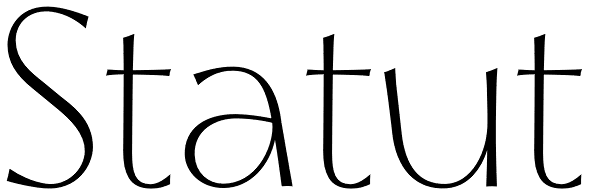
Statut
Statut is a ceremonial, elegant and highly readable display typeface with humanistic proportions based on Renaissance inscriptions. This sophisticated typeface is excellent for a variety of uses, including branding of hotels, cafes, restaurants...